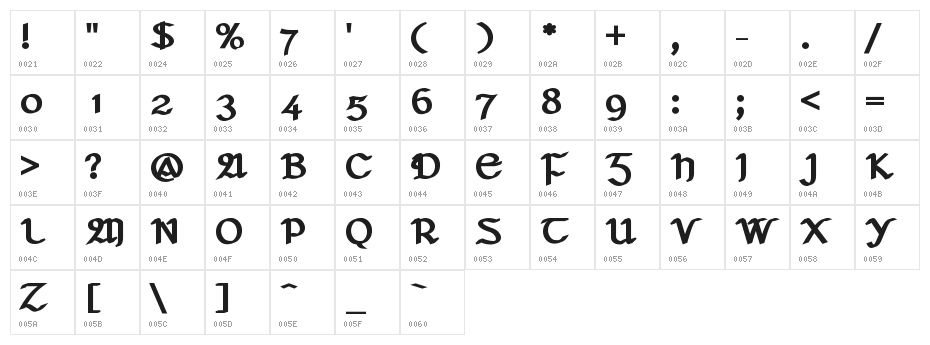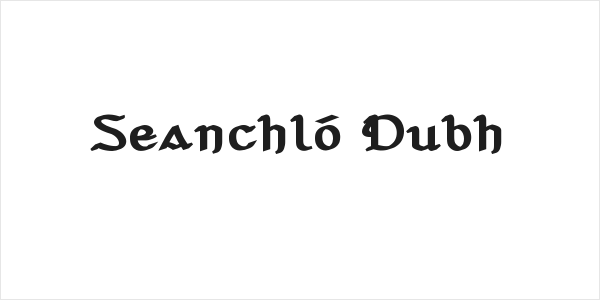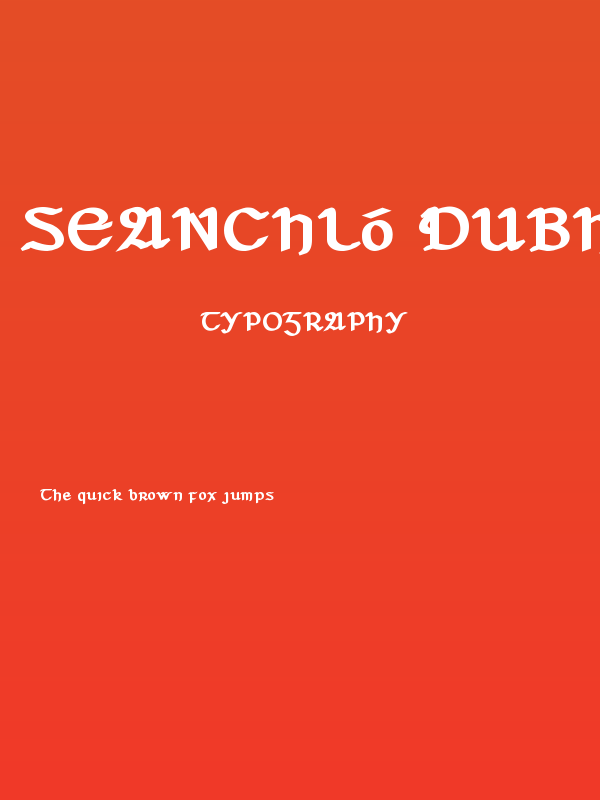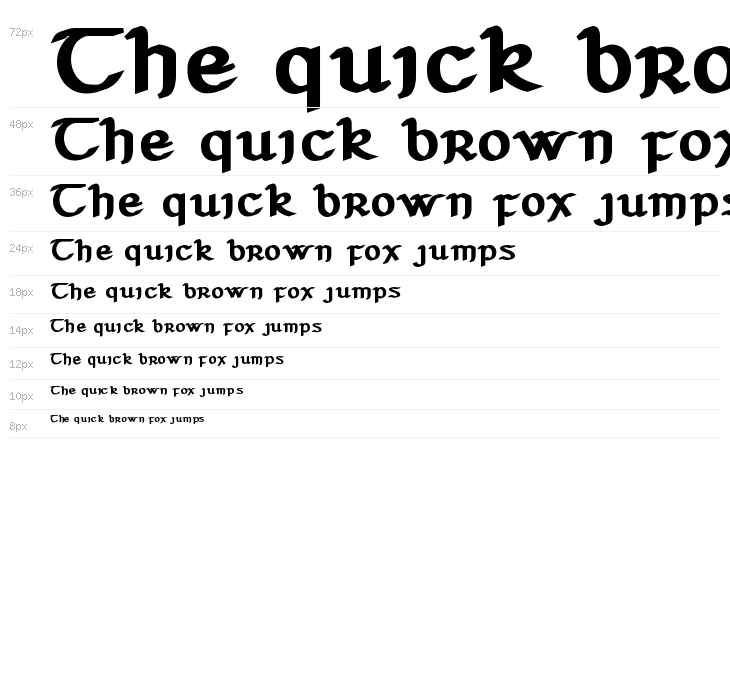
Seanchló Dubh Font
Seanchló Dubh Description
This font exhibits a distinct medieval and gothic style, characterized by its sharp, angular lines and ornate detailing. The uppercase letters are bold and commanding, with unique flourishes that give each character a sense of individuality. The lowercase letters maintain the same stylistic elements, ensuring consistency across the typeface. The numerals are equally stylized, with a strong presence that complements the overall aesthetic. Special characters are designed with the same attention to detail, making them seamlessly integrate with the rest of the font. This typeface is perfect for projects that require a historical or fantasy theme, offering a dramatic and eye-catching appearance.